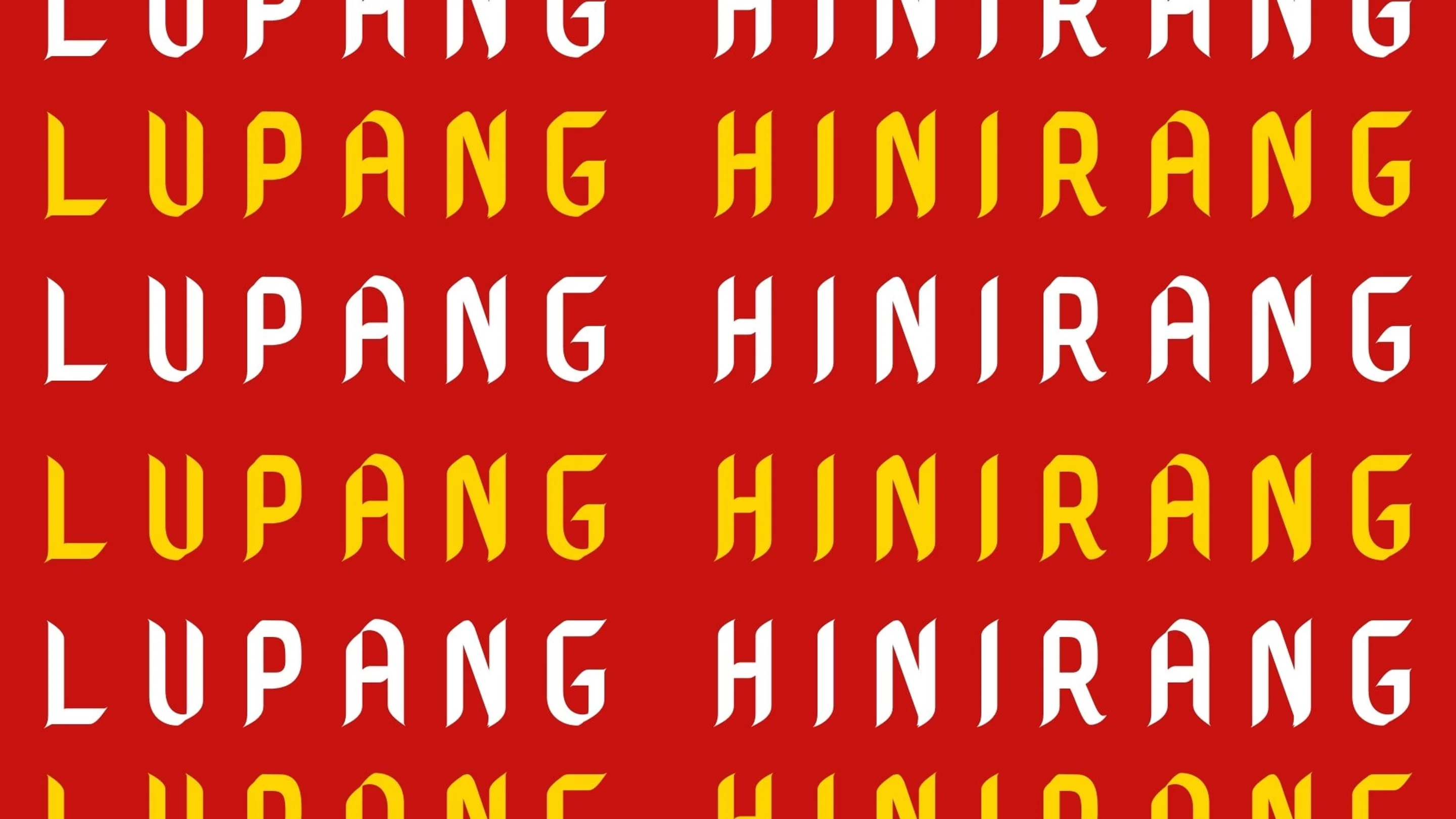
Looking for fonts to level up your Pinoy aesthetic? We got you.
From fonts resembling Pinoy street signs to odes to provinces we love dear, these Filipino fonts are sure to amplify your Pinoy aesthetic designs. As a country with a very strong visual culture, these allow us to celebrate typography as an art form that celebrates our people and our country through our everyday designs. In this article, get to know 20 free Filipino fonts available on Canva, ready to use for any of your designs.
This font captures the aesthetic of Filipino sign painting, typically seen on jeepney sign boards and with street vendors. The first known Filipino-inspired font, BBT Martires is named after Trece Martires in Cavite (named after the 13 Martyrs of the town), where the font artist John Misael is from. This font is playful and casual, reflecting the fun and humorous nature of Filipinos. You can use this font for any headings, signages, or text overlay for your Instagram post designs(opens in a new tab or window). This font would also be great to use for creating visuals for your next home business, perfectly capturing the entrepreneurial spirit of Filipinos.
Quiapo is another brush-style typeface giving an ode to Filipino sign fonts, referencing the seamless brush strokes of this Filipino hand drawn font. The font captures the tedious and precise craftsmanship of a Filipino street sign artist, usually painting each letter or character with one stroke. Created by Quezon City based artist Aaron Amar(opens in a new tab or window), this font is very easy to read, perfect for quote graphics like the quote plaques you keep re-reading when stuck in EDSA traffic.
A nod to the neon signs on the streets of Manila, this bold typeface makes a huge impact at first sight. This font style, typically seen on the windshields of city and provincial buses in the Philippines, is usually handmade with stencils painted with bright colors over a black background to ensure the visibility of the sign whether it’s day or night. The powerful effect of this font, with its variation of round and curved edges, make it great for one liners or catchphrases in any design asset.
This brush-style font allows you to use Baybayin with ease for any of your make. The delicate handwritten style of this font, created by Lloyd Zapanta(opens in a new tab or window), creates a personalized feel on any of your designs. This makes it perfect for teaching guides that spread the use of our pre-colonial language, or even just for practicing your baybayin writing skills using any of Canva’s pre-made templates.
Kundiman is a traditional Filipino way of serenading, usually used to woo or express admiration for a loved one. Taking this sense of passion and desire from the art form, the team at Serious Studio(opens in a new tab or window) created this romantic font perfect for personal invitations(opens in a new tab or window), as a title font, and for social media cover photos.
Anahaw takes after its namesake leaf, with every font stroke resembling a leaf’s shape. Like the Anahaw leaf, which is used for a variety of functions (from a food wrapper to a fan!), this font is also multi-purpose. Created by Hanken Design Co(opens in a new tab or window)., it can be a fun addition as text overlays on images(opens in a new tab or window) or title fonts to liven your presentations(opens in a new tab or window), and it can also be used for your next school project’s posters.
Dangwa is a flower market in Manila, and this typeface, created by Aaron Amar(opens in a new tab or window), honors its namesake through its curvy and soft features. Another ode to Filipino sign makers and their craft, Dangwa even has a special ñ character in its package. Great for flyers(opens in a new tab or window) and infographics, Dangwa can make your visuals feel light and soft, like fresh flowers delivered from Dangwa.
This typeface by Aaron Amar is reminiscent of old handwriting styles seen in Philippine government emblems, seals, and documents. The calligraphic style of the font makes any text look formal yet inviting. This font transports your design to a time with no typewriters, computers, or printers, great for posters(opens in a new tab or window) on a Filipino history project as a body text font.
Created by Aaron Amar who also created Kawit, Dangwa, Quiapo and Cubai, this condensed typeface references gothic serif typefaces found on Pinoy tombstones. Furgatorio captures a gothic and grunge vibe that works great for a themed poster or flyer.
This minimalist typeface brings together elegance and simplicity perfect for text overlays, editorial spreads, or the title font for your next business card(opens in a new tab or window). Though this font doesn’t reference Filipino visual culture, it amplifies the talents of Aaron Amar, who’s other fonts and design pay an ode to the rich visual identity of the Philippine streets.
LL Baguio, created by Lloyd Zapanta, aims to preserve the typography found on Philippine broomsticks, which are often weaved by Baguio locals for export locally and internationally. This typeface would usually read “Baguio City” to reference the origin of the brooms and subtly show off the region’s talent. This font is great for texts on minimalist posters, with its pixel-like aesthetic mimicking the weave on a Filipino broom.
The rich tapestry of Filipino culture and history is beautifully encapsulated in these 20 Pinoy-inspired fonts. From the bustling streets of Manila to the serene landscapes of the provinces, each font tells a story that resonates with the Filipino spirit. As you embark on your design journey, remember that Canva's vast library of design elements and templates is just the beginning. For those who crave even more variety, SlidesCarnival offers a plethora of Pinoy-inspired presentation templates(opens in a new tab or window) that you can seamlessly edit in Canva. Dive in, explore, and let your creativity shine through with a touch of Pinoy flair.